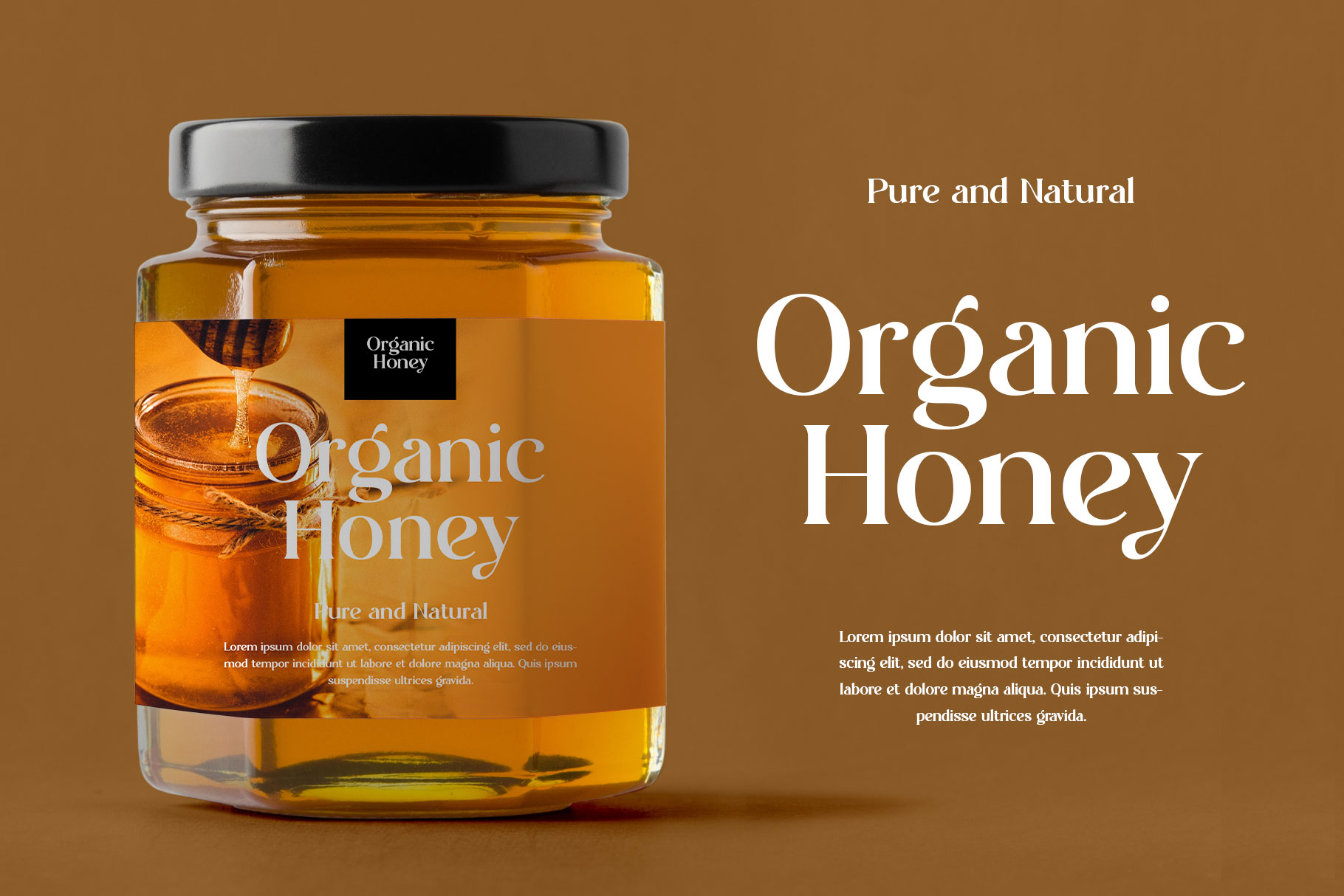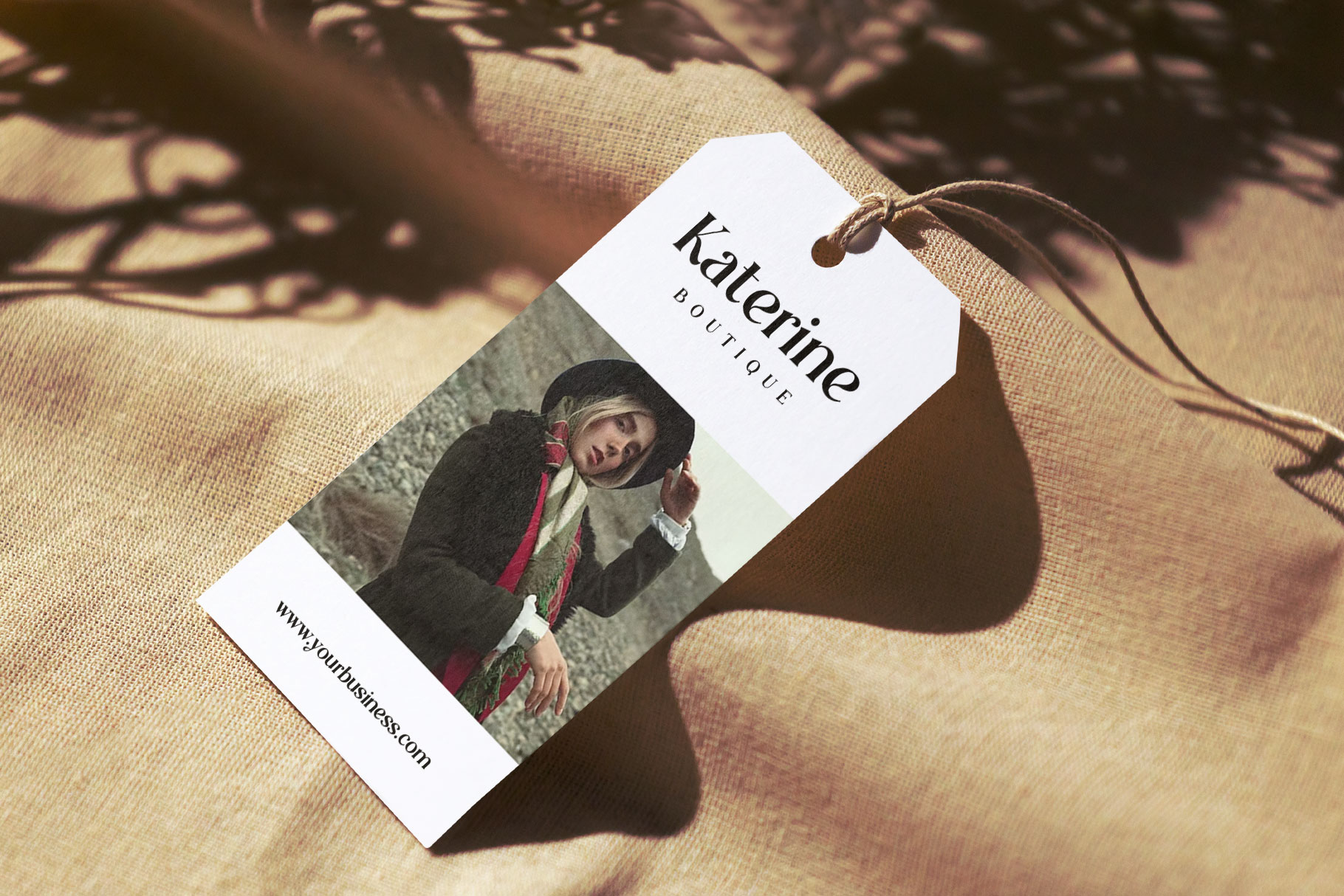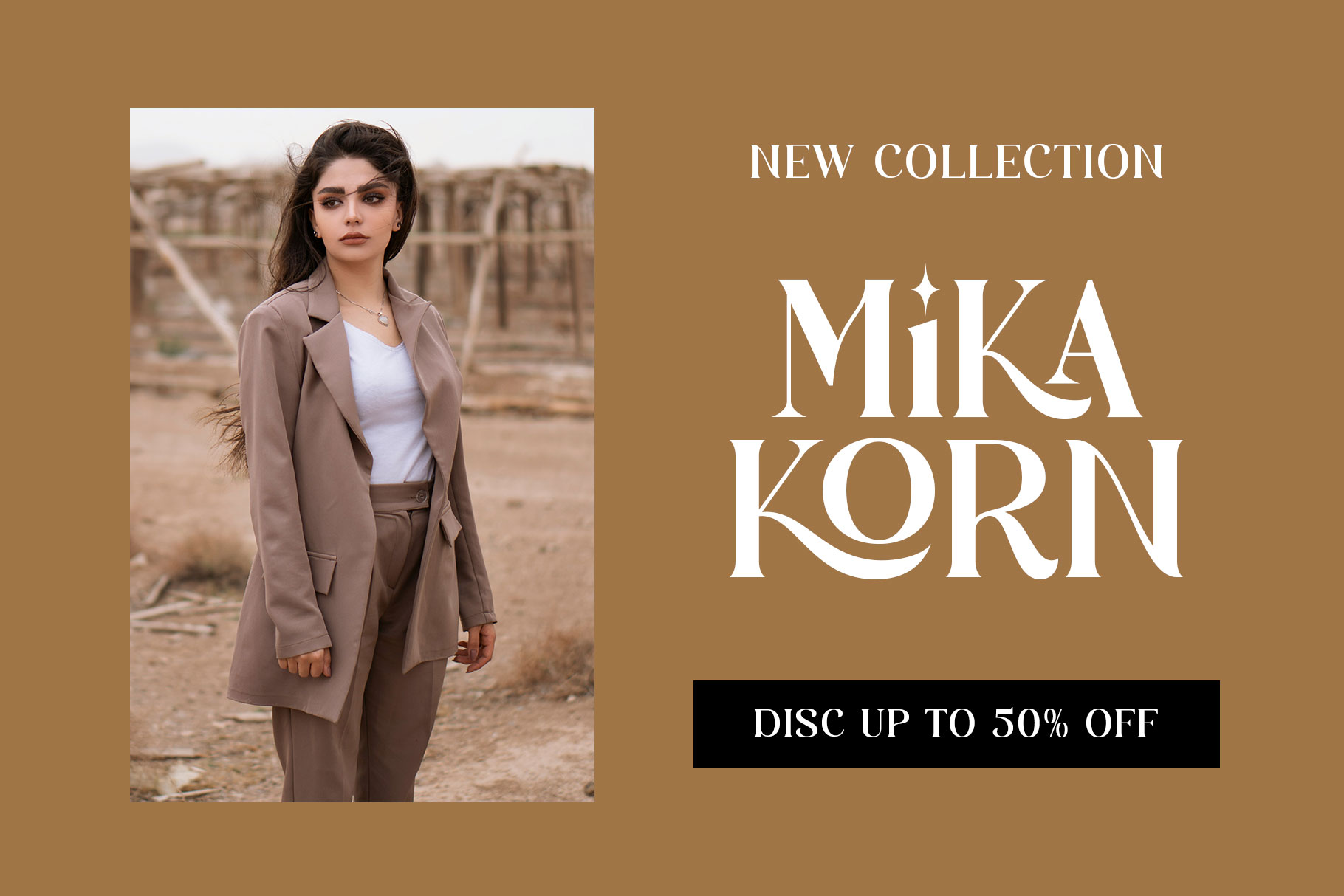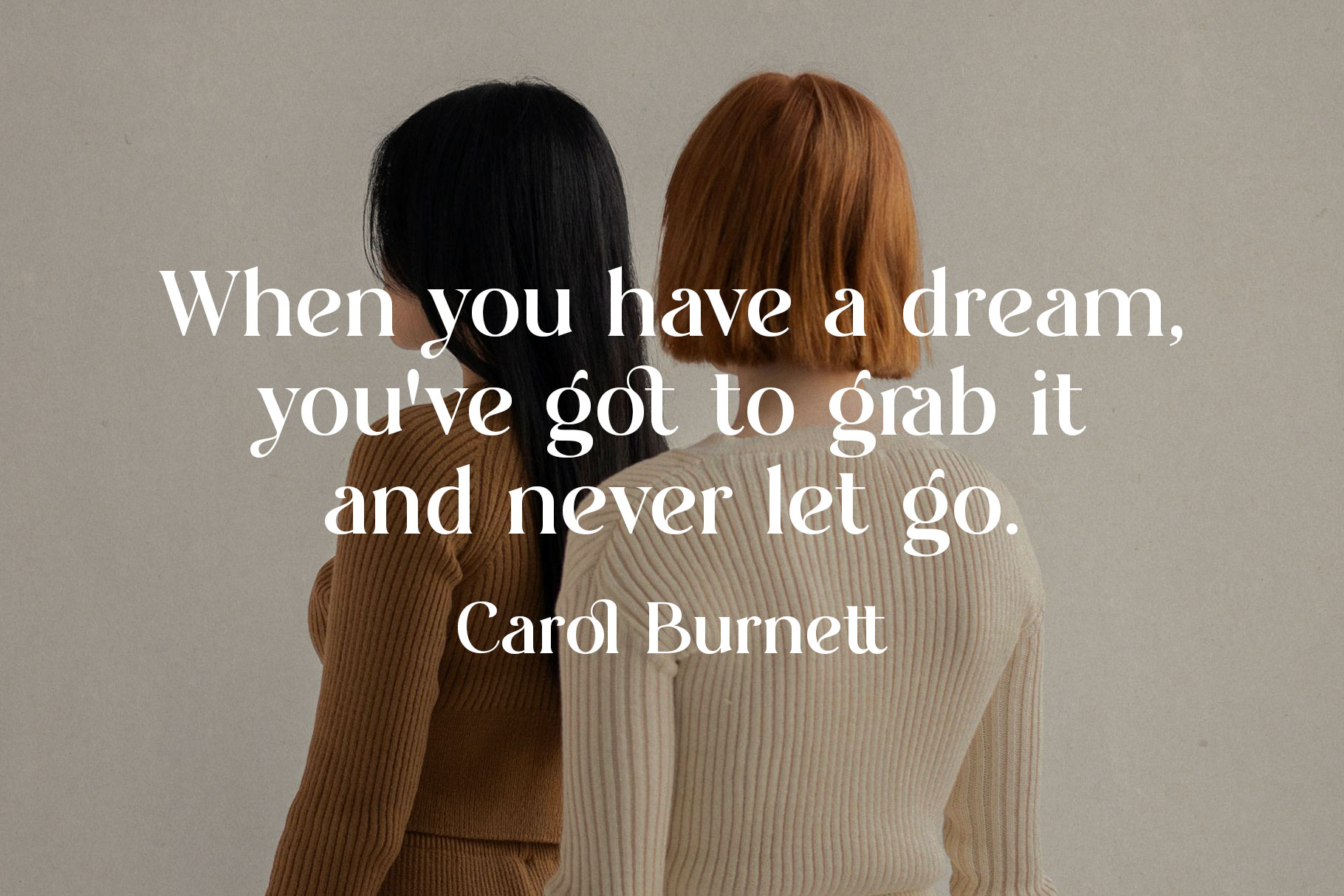
Rabelya Modern Elegant Serif Font
A modern elegant serif font is a typeface that blends the timeless sophistication of classic serif design with contemporary aesthetics. Here’s a detailed breakdown of what makes a modern elegant serif font stand out. Rabelya is a perfectly choice for any creative endeavor, chic, lifestyle design such as logotype, advertisements, watermark on photography, stationery, branding project, display and magazine, invitation, corporate brand, product design, label, business project and many other project with modern touch.